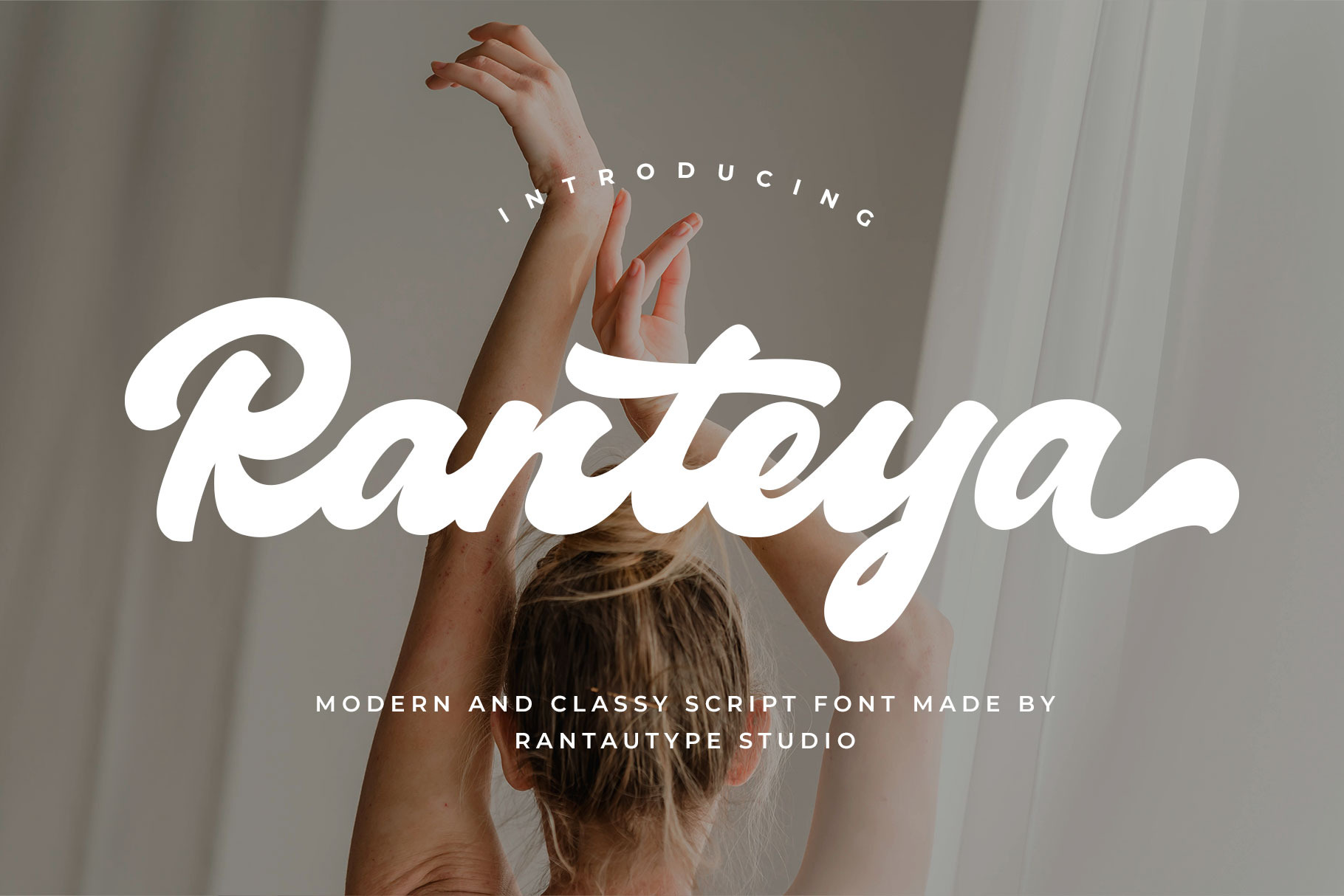
Ranteya Classy Script Font
Bring you professional brand with Ranteya, ranteya is Classy script font embrace grace and feminity. Ranteya is a perfect choice for any creative endeavor, lifestyle design such as logos, title, watermark on photography, cover, branding, display and magazine, wedding event, corporate brand, quotes, album cover, business card, business project, company branding and more project with handwritten taste.
- Alternate and ligature